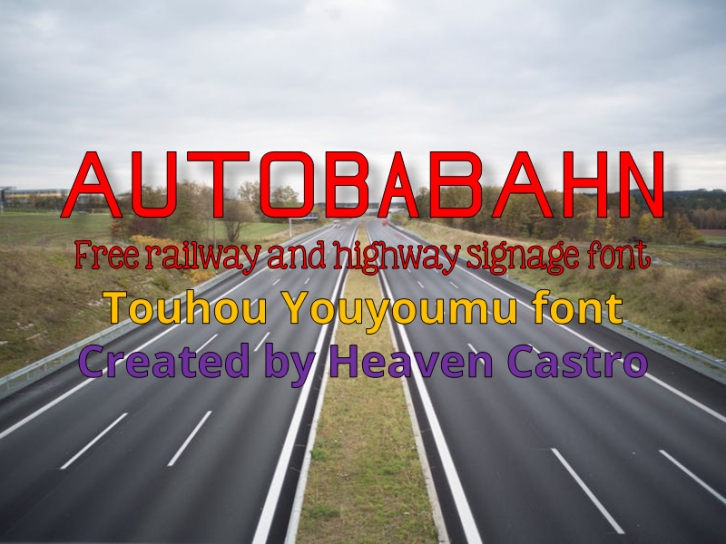
Autobabahn is a font inspired by the Japanese railway and highway signages and the American license plates. The title combines the German word "autobahn" and the Japanese word "baba". This is not my first font to include superscript lowercase letters, with Sunflower Highway Signage Caps was the first.